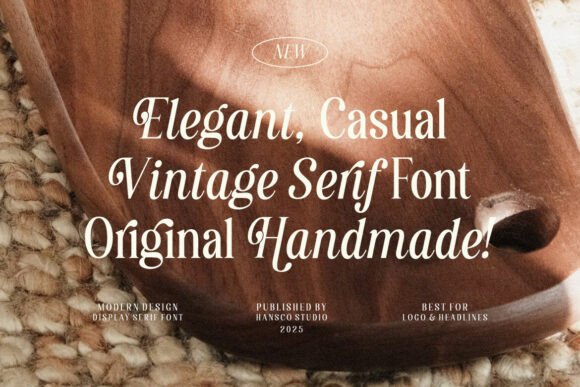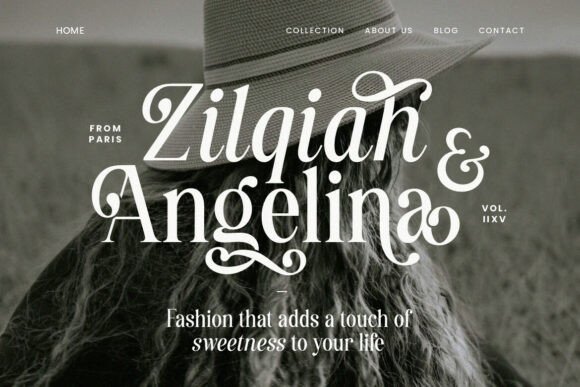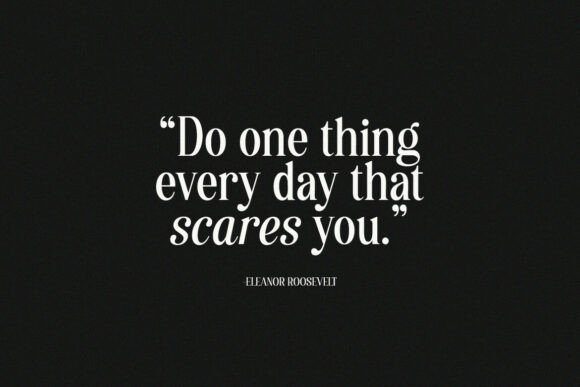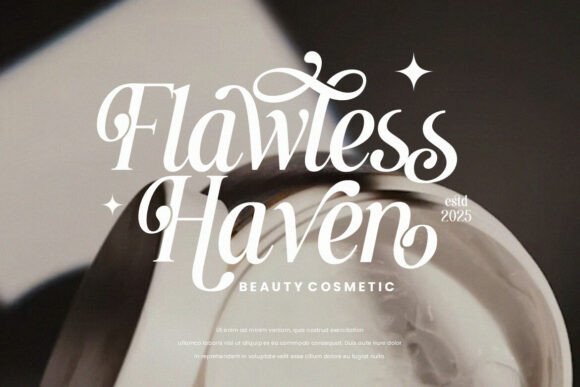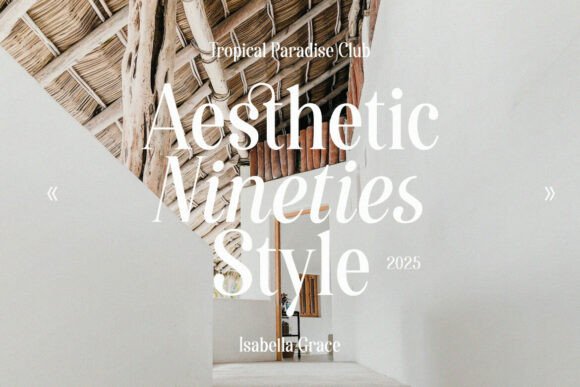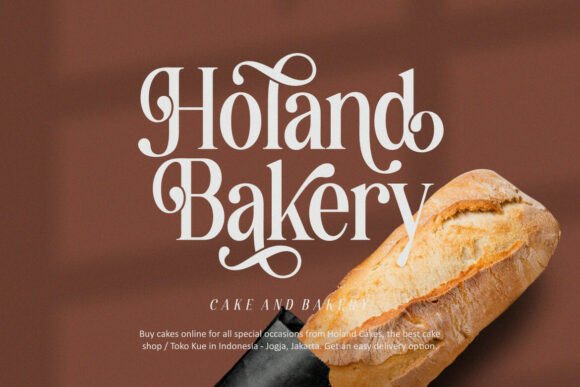
Introduction to Destiny Gorgeous Font
Destiny Gorgeous is a beautiful retro serif font.
It features an incredibly feminine and retro style, while still keeping a elegant feel Destiny Gorgeous is the perfect font for making designs project especially for those of you who want something unique with a smooth swash style in every characters on your logo or brand.
Key Features of Destiny Gorgeous Font
Why Choose Destiny Gorgeous Font?